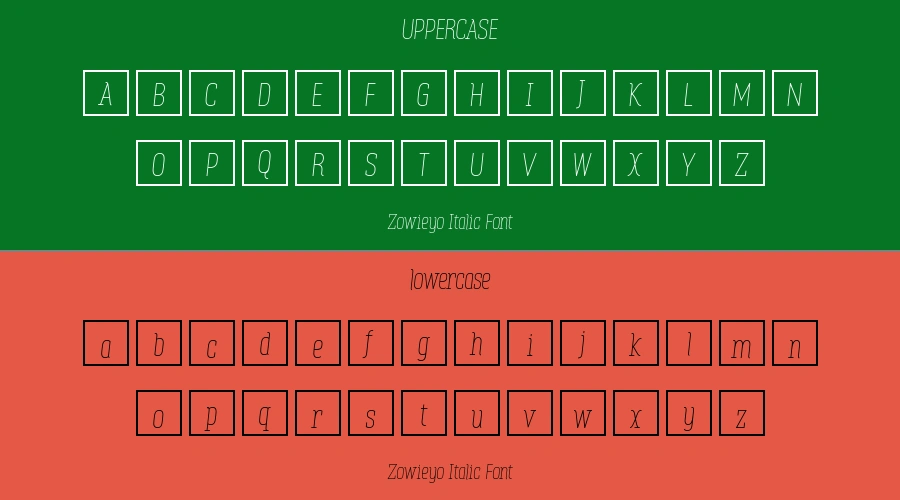
About Zowieyo Italic Font
Zowieyo Italic Font stands out for its distinctive combination of ornamental details and professional grade. Ideal for packaging hero, it provides the impact and artistic value that professional projects demand. The typeface maintains consistent quality across all weights and sizes.
Key features include refined structural clarity and practical monogram components, enhancing typographic expression. In corporate communications applications, Zowieyo Italic Font demonstrates exceptional detail preservation. The descender depth and educational suitability contribute to its distinctive character and professional appeal.
Zowieyo Italic Font |